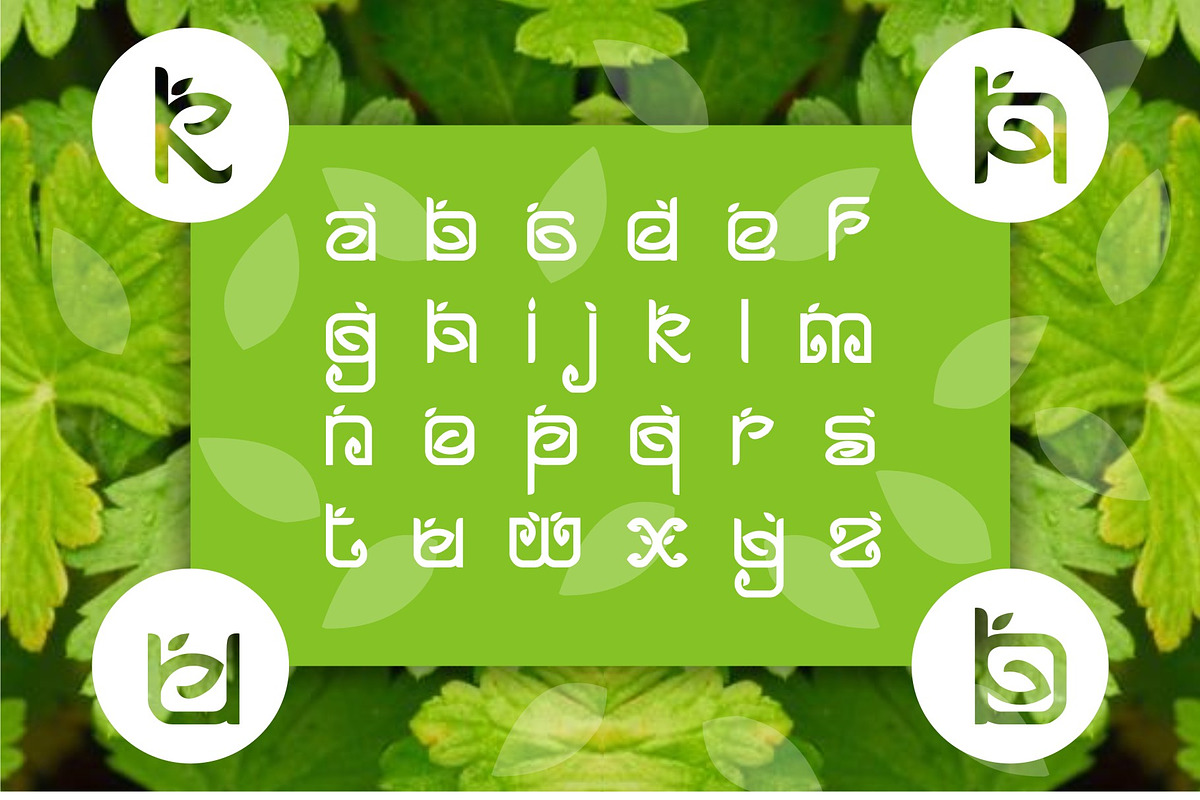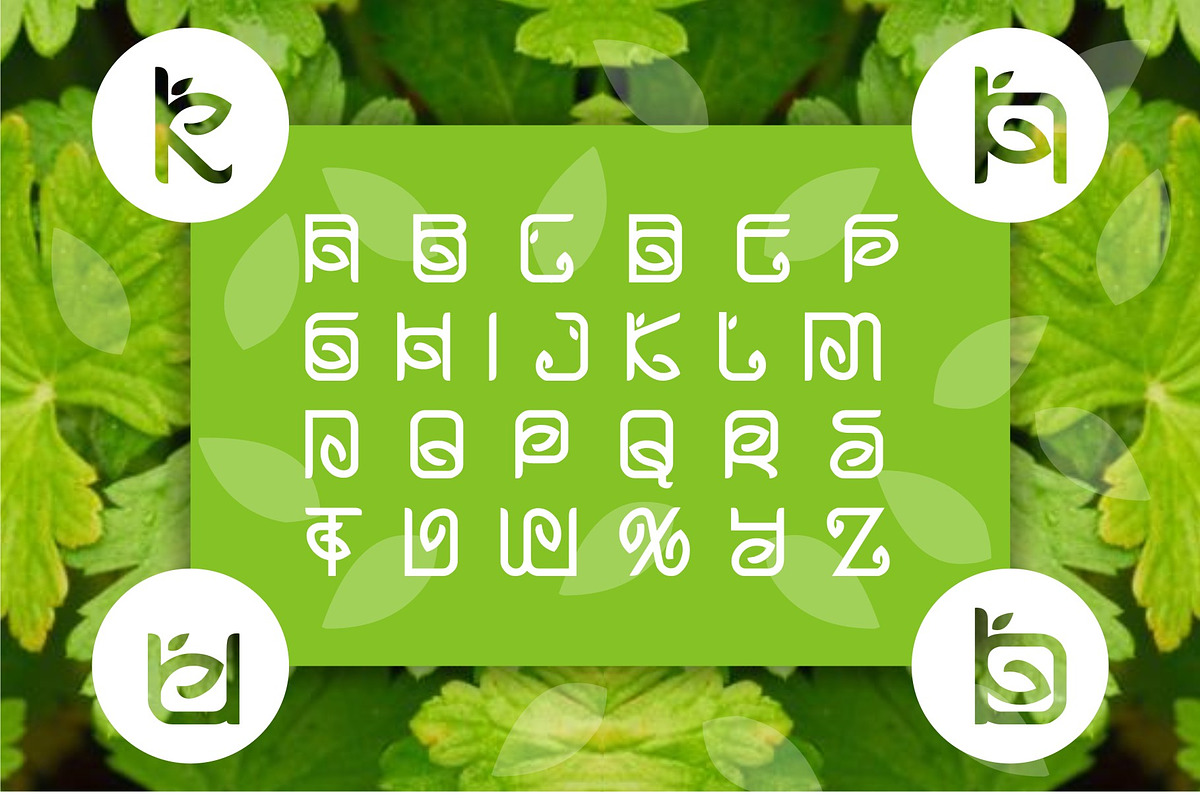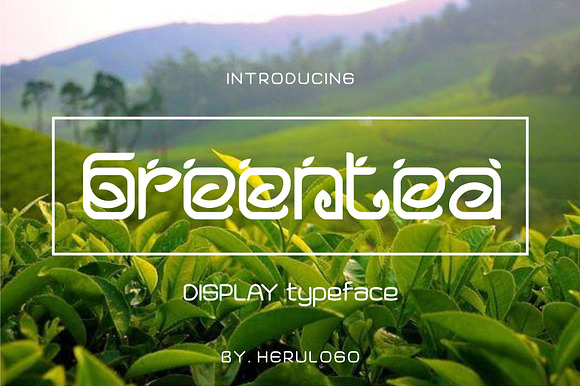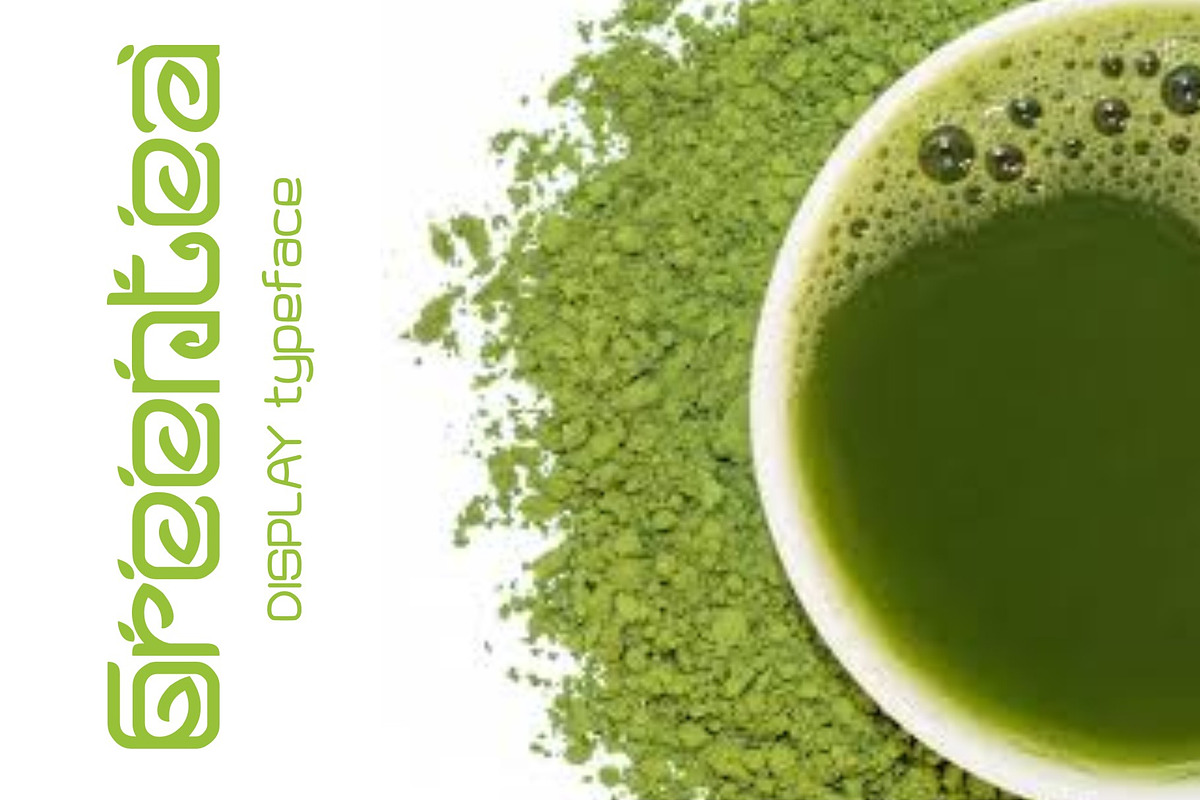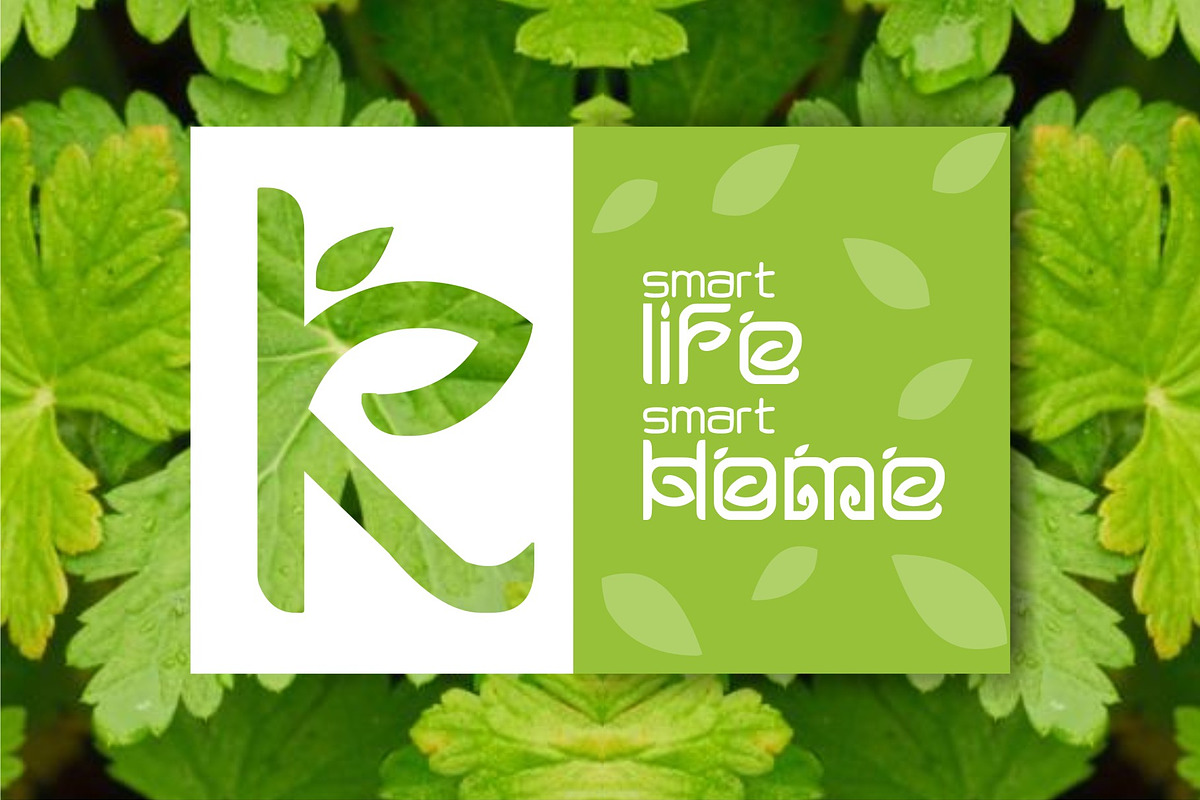
Greentea Display Typeface
Good combination simple leaf and typeface, very good typeface for healthy/gym or green drink company
Greentea Display Typeface by herulogo fits naturally into Branding, posters, packaging, typography.